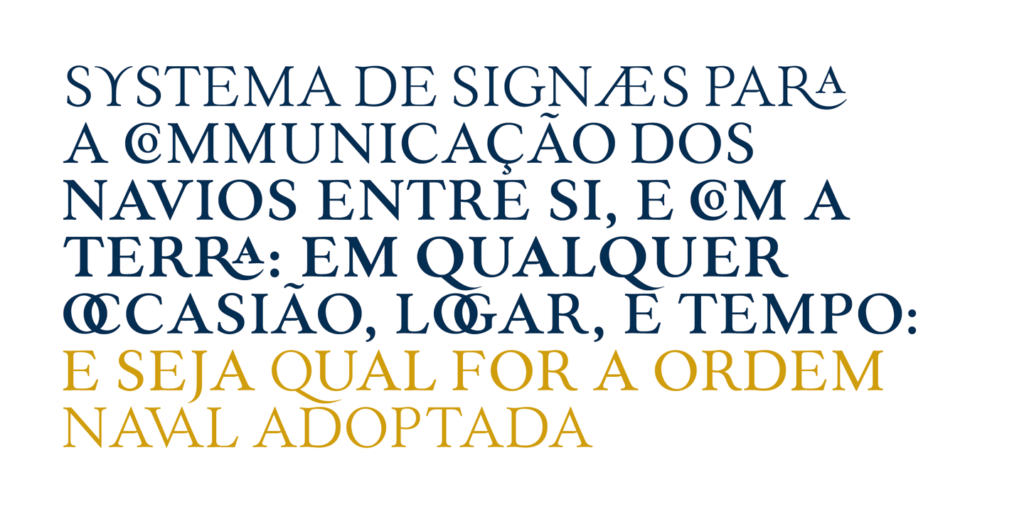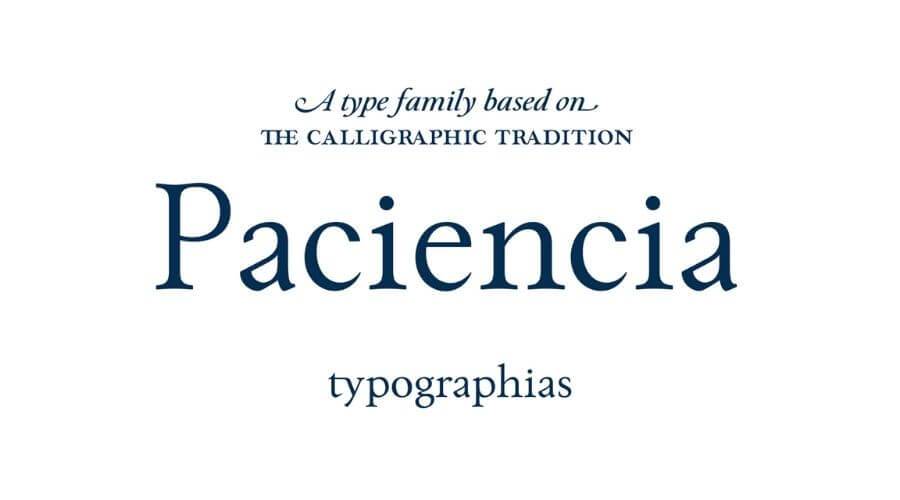
About Paciencia Font
Paciencia has arrived! Typographic created it and shared it. This family began as a graduation project in 2009, based on humanist proportions and inclination, and evolved from calligraphic studies and sketches using a broad nib pen. It has come a long way since its ink and paper beginnings, having been digitalized and transformed into fonts over the last eight years. The Paciencia includes the following font families: Paciencia, Paciencia Regular Italic, Paciencia Medium, Paciencia Medium Italic, Paciencia Bold, Paciencia Bold Italic, Paciencia Black and Paciencia Black Italic.
Paciencia is a great typeface for any project. Although the strokes are basic and uncomplicated, they are powerful enough to draw attention to your work. Paciencia is the ideal typeface for all of your whimsical projects. The font can be used to create unique designs, covers, shop and store names, and logos. Paciencia is also ideal for branding initiatives, homeware designs, product packaging, and as a classy text overlay on any background image.
| Name | Paciencia Font. |
| Style | Serif Font. |
| Designer | Typographias |